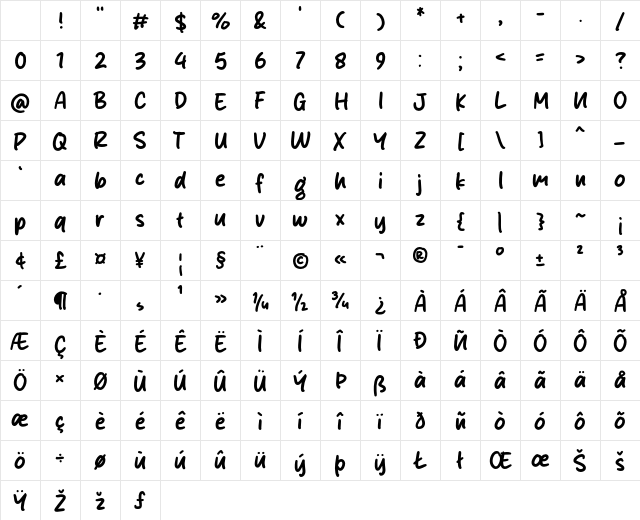
Complete Young Kids Regular glyph index. Displaying only characters natively supported by Young Kids Regular font.
Young Kids has an approachable, lighthearted character - its loose, expressive forms are well-suited to children's content, casual branding, and fun-first design.
Font Pairing: Pairs well with a rounded or humanist sans for body copy, maintaining the friendly tone without relying on Young Kids to carry extended reading.
Pro Tip: Use Young Kids at larger display sizes where its expressive character can land. Pair with a clean, simple sans for body copy to maintain readability.